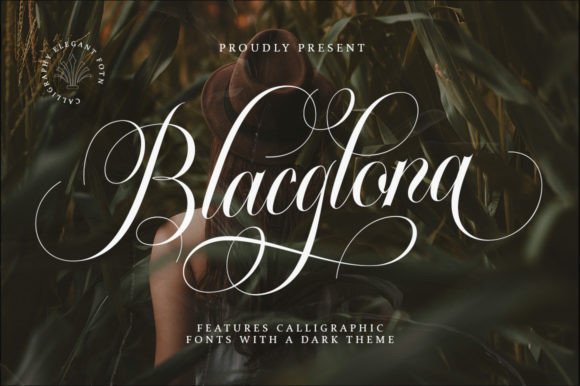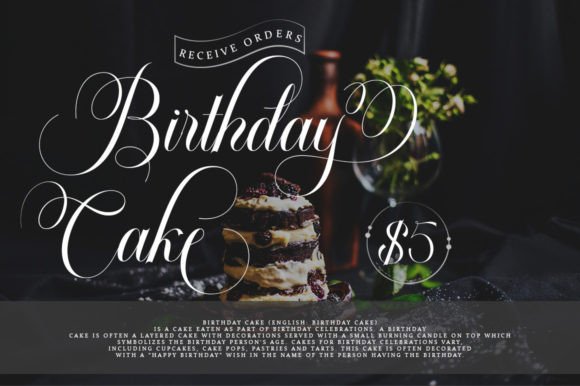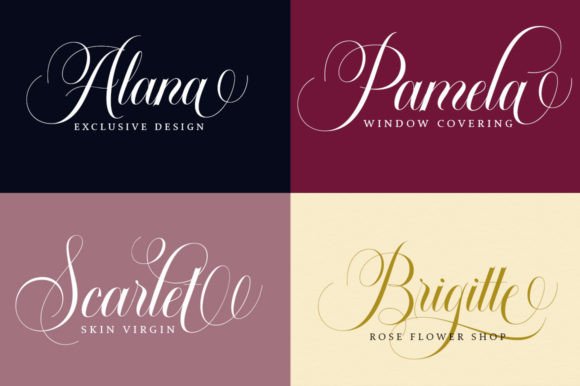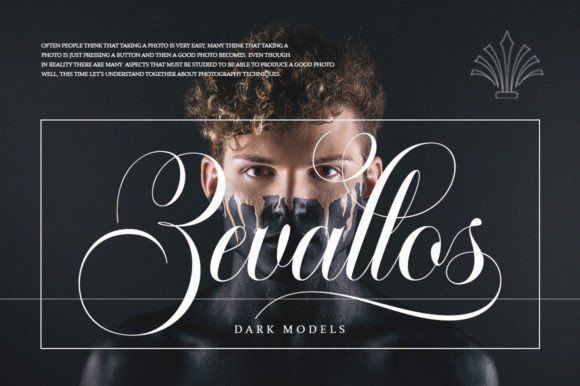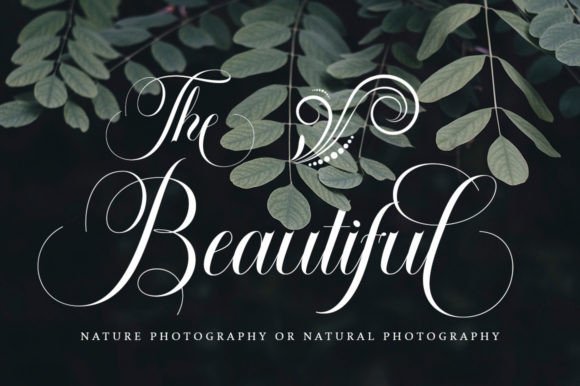
Blacglona Font
About Blacglona Font
Blacglona font is a stylish and elegant script that adds a refined touch to your design projects. Its versatile style makes it an excellent choice for a wide range of applications, from creating gorgeous wedding invitations to crafting beautiful stationery. With Blacglona, your work will stand out with charm and sophistication.
Elegant Script Style
The beauty of Blacglona font lies in its elegant and flowing script design. It captures a timeless and graceful aesthetic, making it perfect for any project that needs a classic yet modern look. Each letter features smooth curves and balanced strokes, creating an inviting and polished appearance.
Perfect for Weddings and Stationery
Blacglona font shines when used in wedding invitations and stationery. It brings a romantic and sophisticated feel that complements any wedding theme, from traditional to contemporary. Use it to design thank-you cards, save-the-date cards, or personalized notes that will leave a lasting impression.
Social Media and Branding Use
Beyond weddings, Blacglona font is ideal for social media posts and branding. Its elegant style adds a professional and eye-catching flair to logos, headers, and promotional materials. Whether you are building a brand or sharing creative content, Blacglona enhances your visuals with style.
Versatile Design Applications
This font’s adaptability makes it suitable for a variety of other creative projects. Use Blacglona for posters, greeting cards, product packaging, or any design that benefits from an elegant script. Its legibility and beauty combine to deliver a perfect balance of style and function.
Why Choose Blacglona Font?
Blacglona font offers a timeless elegance that elevates your design projects effortlessly. Its versatility, readability, and charming aesthetic make it a valuable addition to any designer’s font collection. With Blacglona, your creations gain a luxurious and professional edge.
Enhance Your Creative Work
Add Blacglona font to your toolkit and enjoy the ease of creating stunning designs with a stylish, elegant script. Whether for weddings, branding, or social media, this font brings your ideas to life with grace and flair.